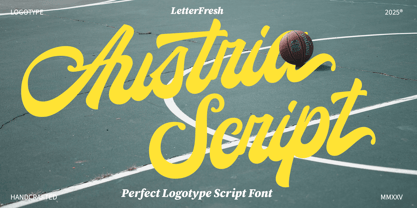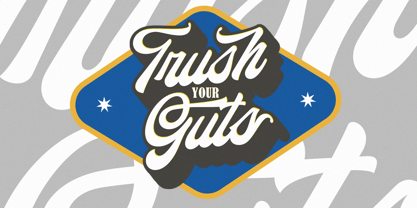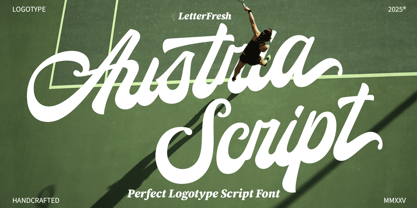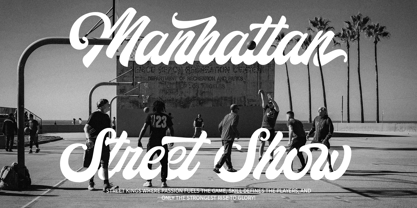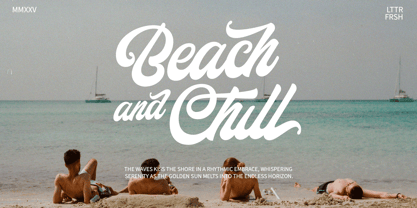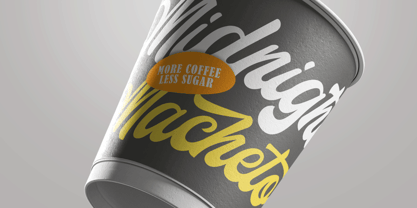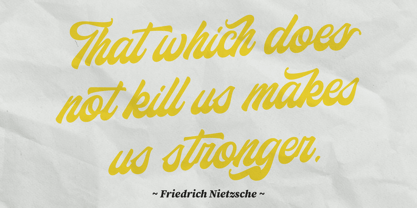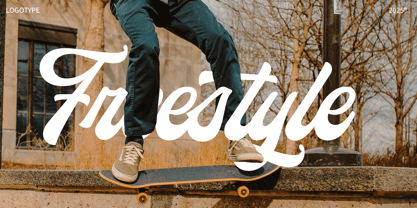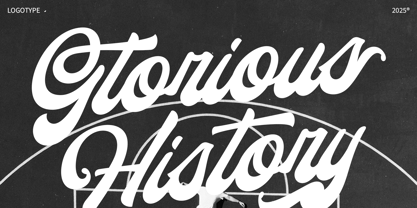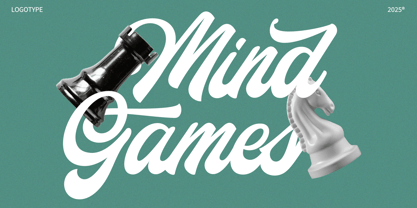
Austria Script
by Letterfreshstudio
The Austria Script Font Family was designed by Rizki Andika and published by Letterfreshstudio. Austria Script contains 1 styles.
Austria Script Inspired by Modern Vintage & Retro styles and a combination with old American traditional style.
Austria Script allows you to create handwritten letters instantly and very practical. Ideal for logos, handwritten quotes, product packaging, headers, posters, merchandise, social media & greeting cards.
Features
Stylistic Collection
Ligatures